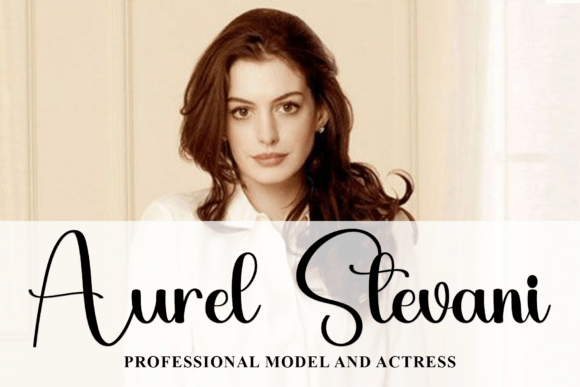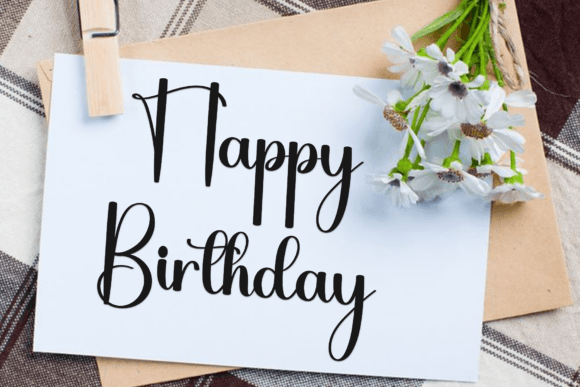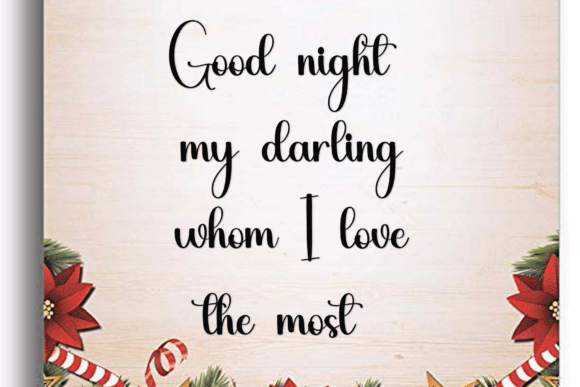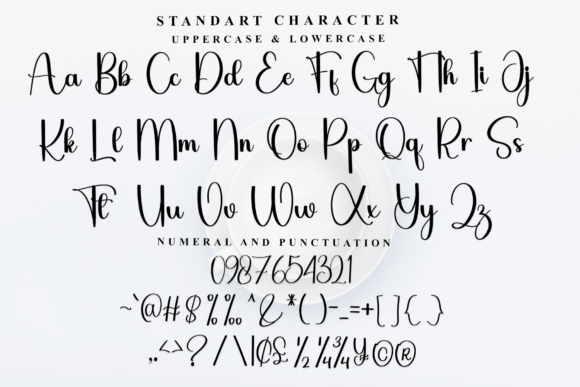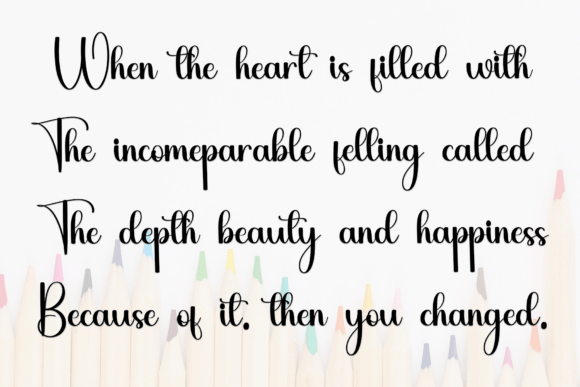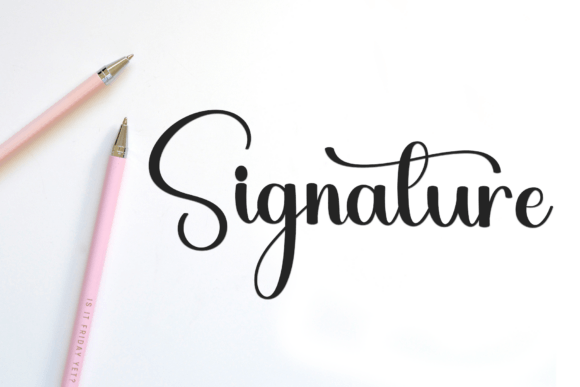
Unlocking Timeless Elegance in Your Designs
Have you ever found yourself pouring your heart and soul into a project, only to feel like something’s missing? The perfect font can be the key to elevating your work from good to breathtaking. For designers, the right font can make all the difference in conveying emotion and creating a lasting impression.
Enter Beautiful Signature Font, a stylish and elegant typeface that embodies the essence of timeless classic calligraphy. With its contemporary atmosphere and impeccable form, this font is designed to enhance the beauty of your projects and leave a lasting impression. Whether you’re working on a wedding invitation, a luxury brand logo, or a personal blog, Beautiful Signature Font is the perfect choice to add a touch of sophistication and elegance to your designs.
Beautiful Signature Font Key Features
- Unique Characteristics: The font features elegant, cursive script with subtle flourishes and connections, making it perfect for signatures and handwritten text.
Review: Beautiful Signature Font
Overall, I think Beautiful Signature Font has some nice qualities, but it also has some areas where it falls short. Let’s start with the good stuff.
✨ One thing that really stands out about this font is its elegance. It’s perfect for creating a sense of sophistication and refinement in your designs. The curves are smooth, and the lines are clean and precise.
- ⚠️ One of the main limitations of this font is its lack of versatility. While it’s great for creating a sense of elegance, it may not be the best choice for more playful or casual designs.
- ⚠️ Another issue is that the font can be a bit difficult to read at very small sizes. This may be a problem if you’re planning to use it for body text or other small-scale applications.
Overall, I think Beautiful Signature Font is a solid choice for designers who are looking to create a sense of elegance and sophistication in their work. However, it may not be the best choice for more experimental or playful designs.
Here are some common use cases for Beautiful Signature Font:
- Business cards and stationery.
- Signatures and letterheads.